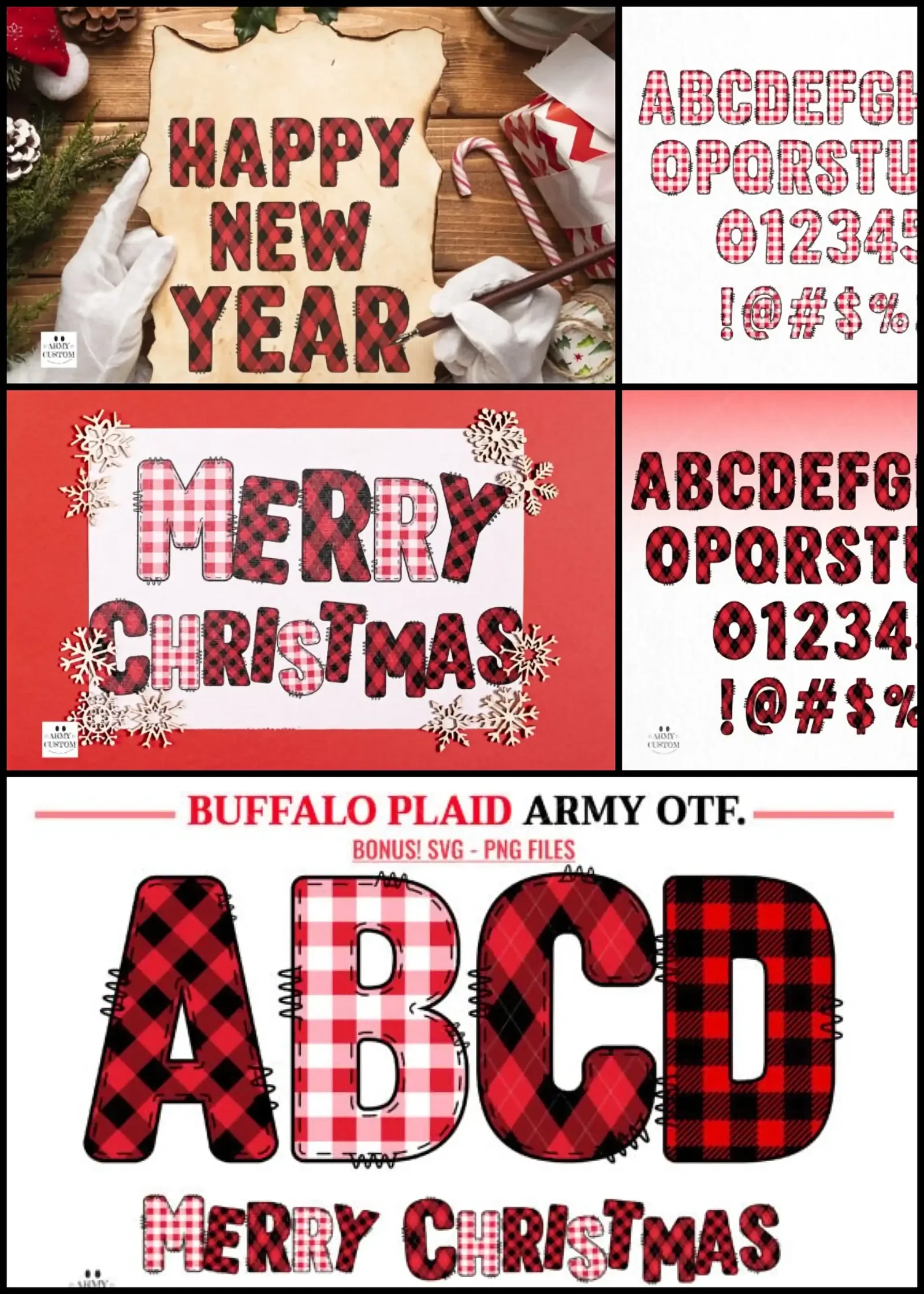
The Buffalo Plaid Font Bundle brings a cozy, festive feel with its red-and-black plaid design, perfect for seasonal projects. It mixes rustic textures with clear readability, adding holiday charm to anything you create. Each letter has a smooth buffalo plaid pattern, giving your words a warm feel.
Great for Christmas cards, farmhouse signs, and holiday decor, this font adds a bold plaid style to any design. The combination of tartan textures and holiday patterns makes it ideal for designers wanting a handcrafted but neat look.
Use the Buffalo Plaid Font Bundle for holiday invites or product packaging to give your work a timeless, cozy look that people will enjoy, adding festive charm to your designs.